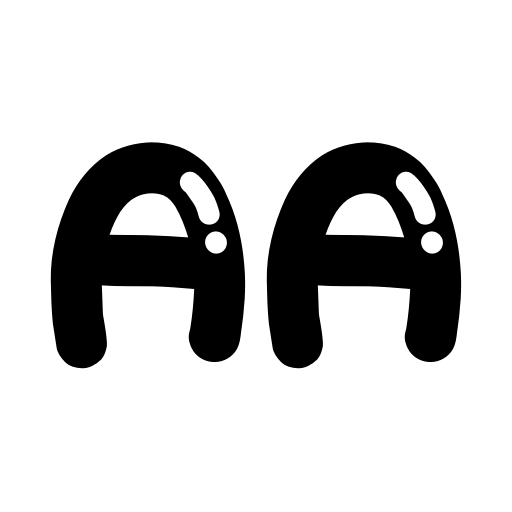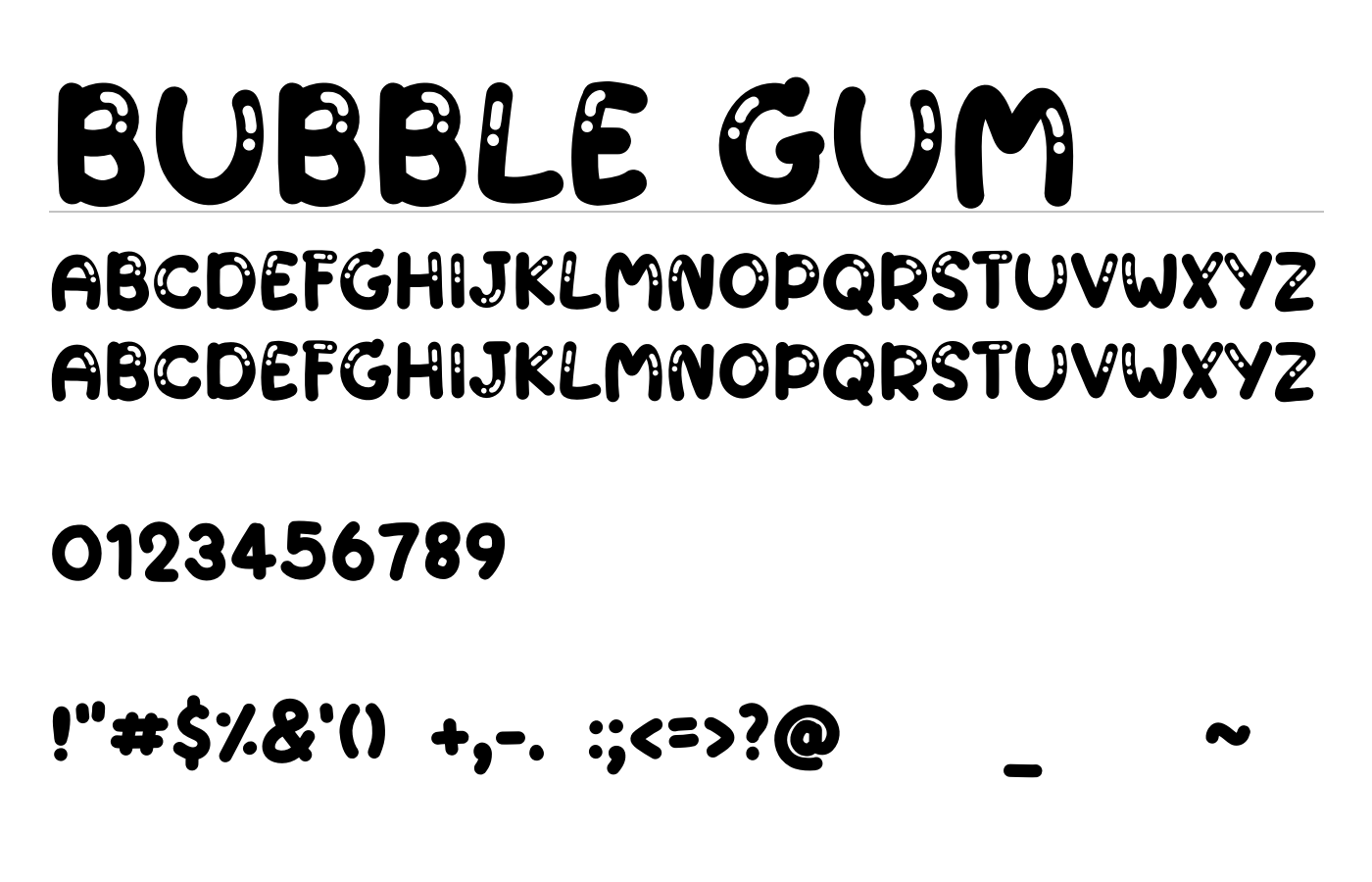
Bubble Gum is a playful, rounded sans serif font with a bold, bubbly feel that evokes fun and lightheartedness. Its thick, soft strokes and quirky letterforms make it perfect for children’s materials, casual branding, and projects that aim to capture a cheerful, friendly vibe. This font works best for logos, posters, and headlines where a whimsical and approachable character is desired.
Bubble gum Font